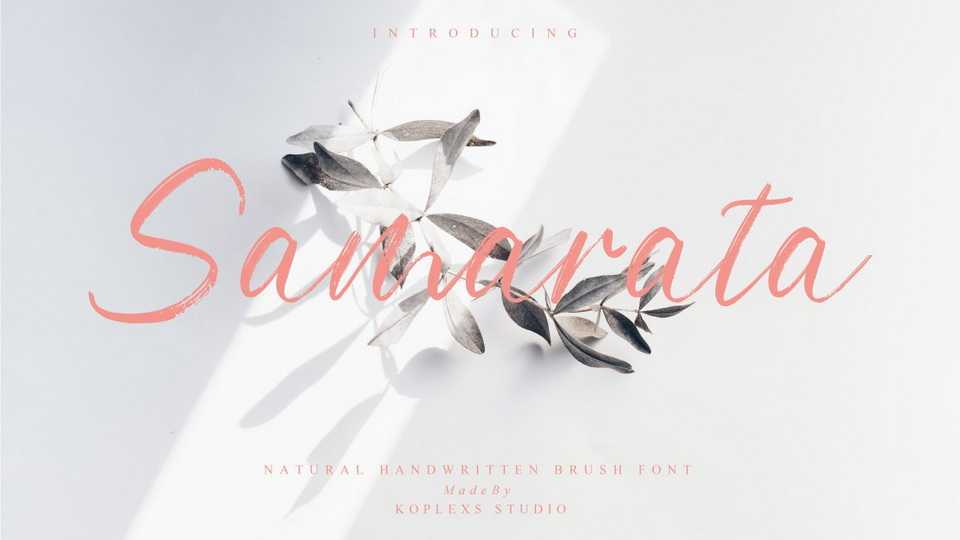
Download Samarata font, a natural handwriting brush script, the detailed texture and clearly visible gives an elegant and beautiful impression. Samarata is very suitable for use in labels, photography, watermarks, invitations, quotes, Instagram posts and so on.
Designer: Koplexs Studio